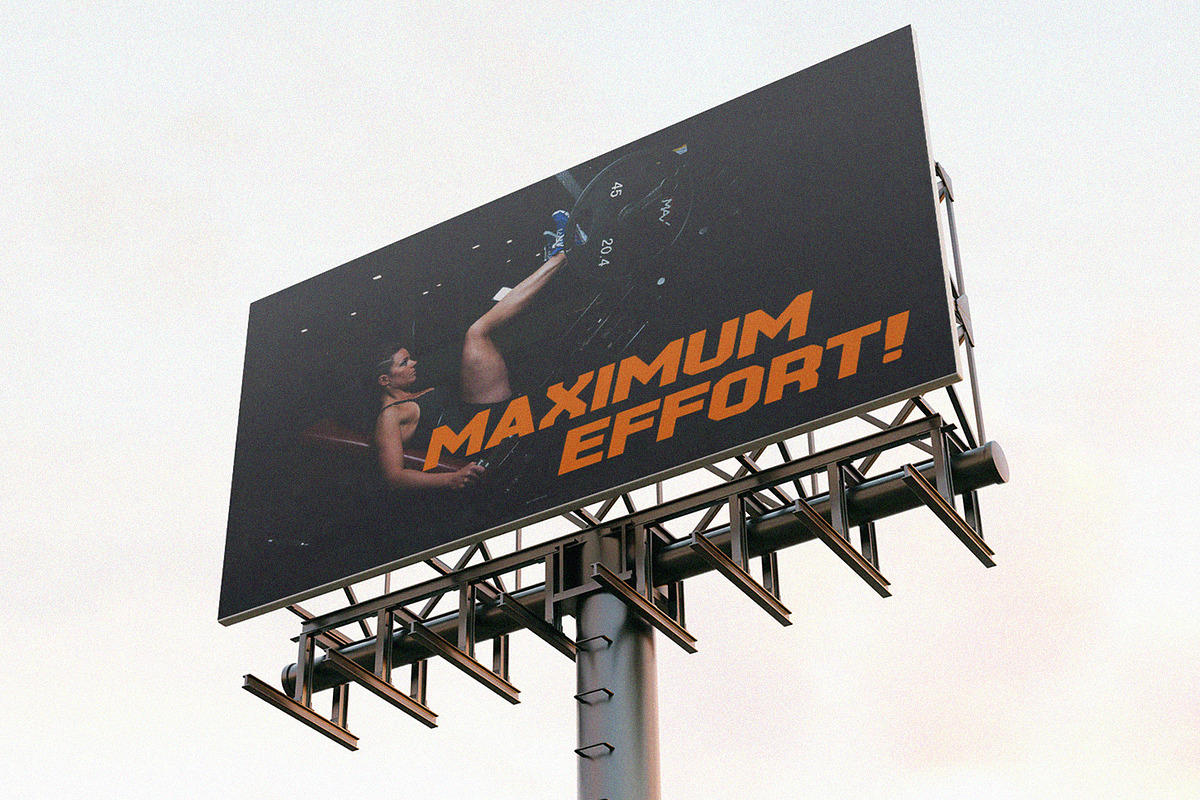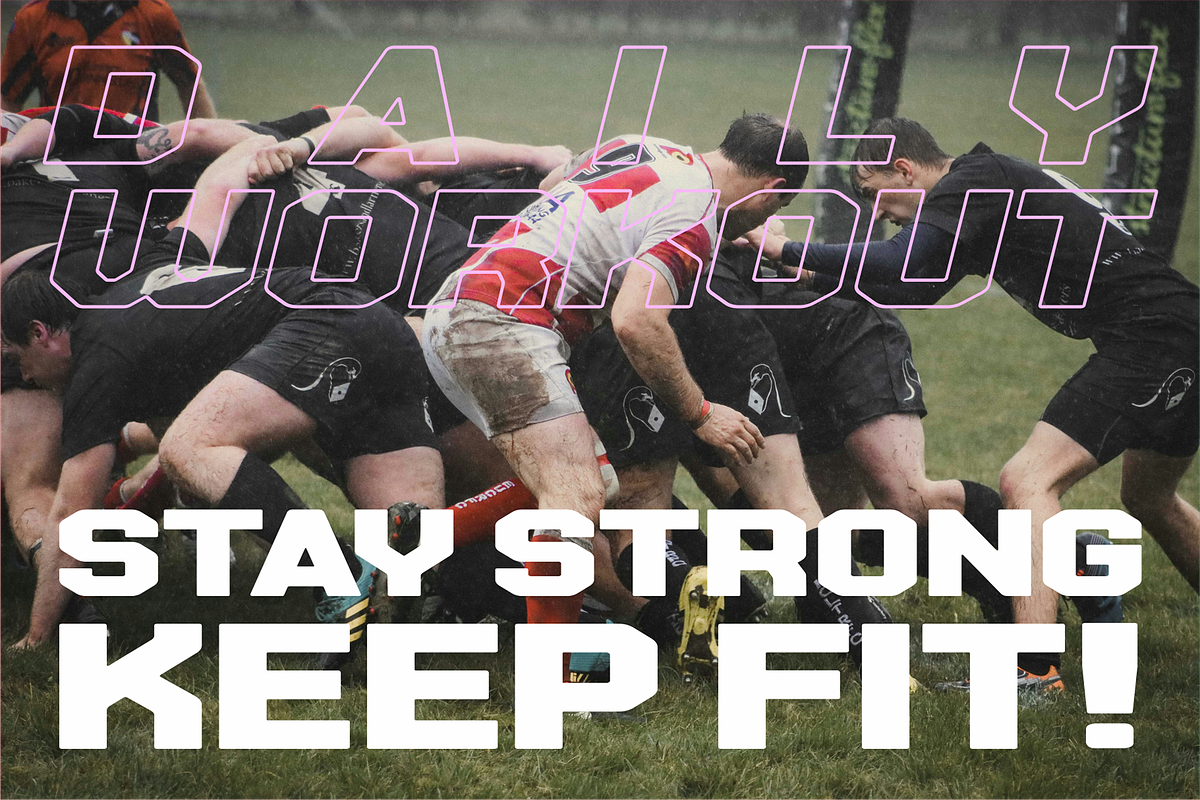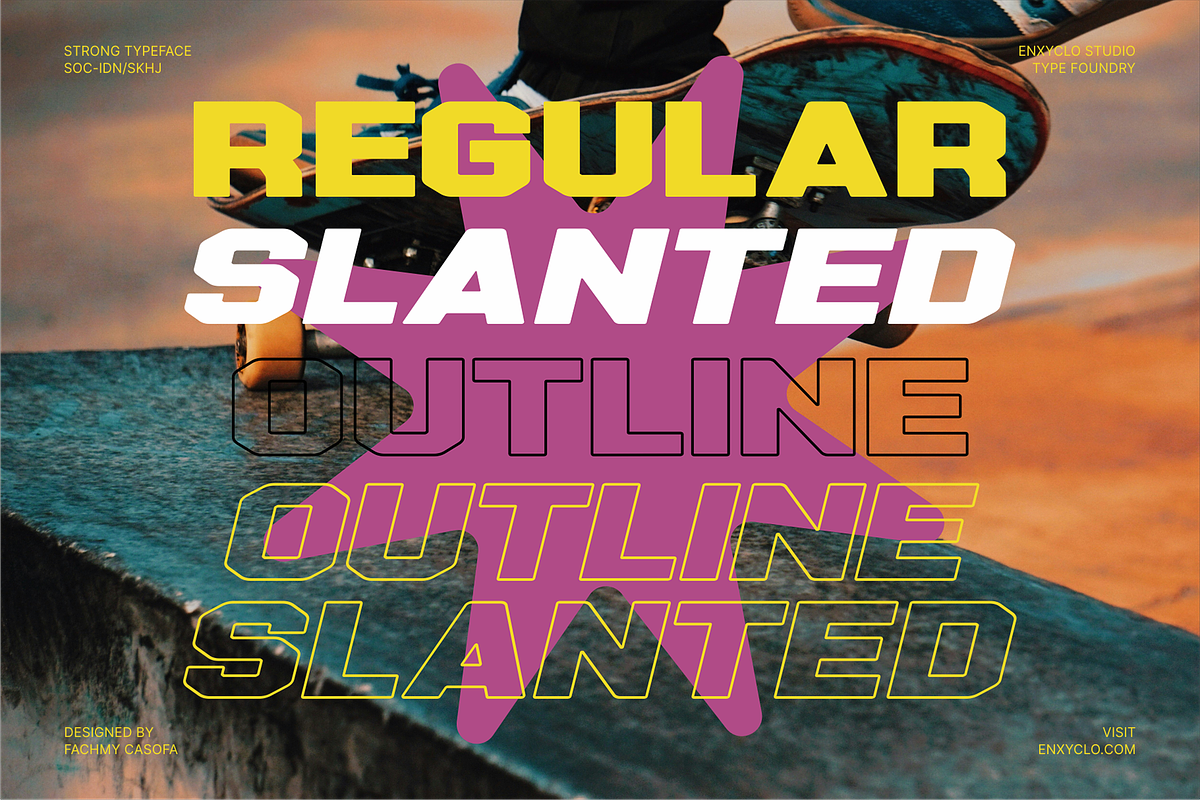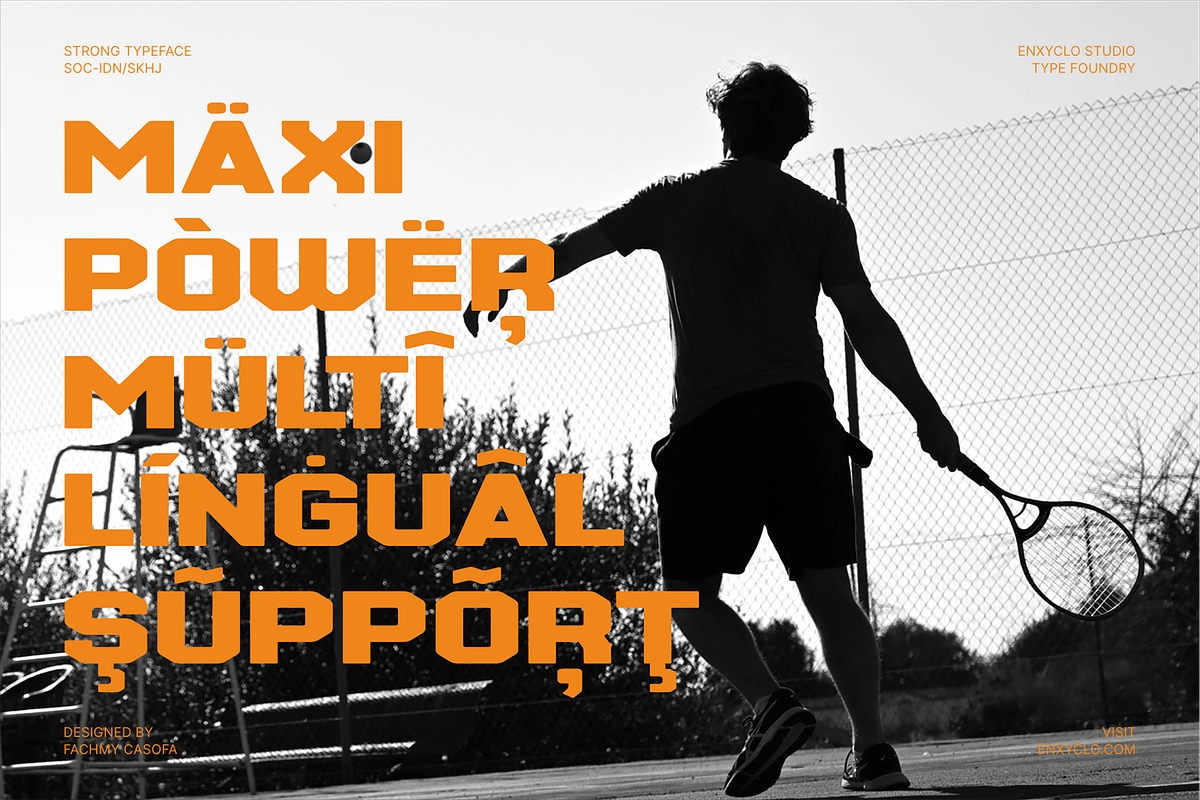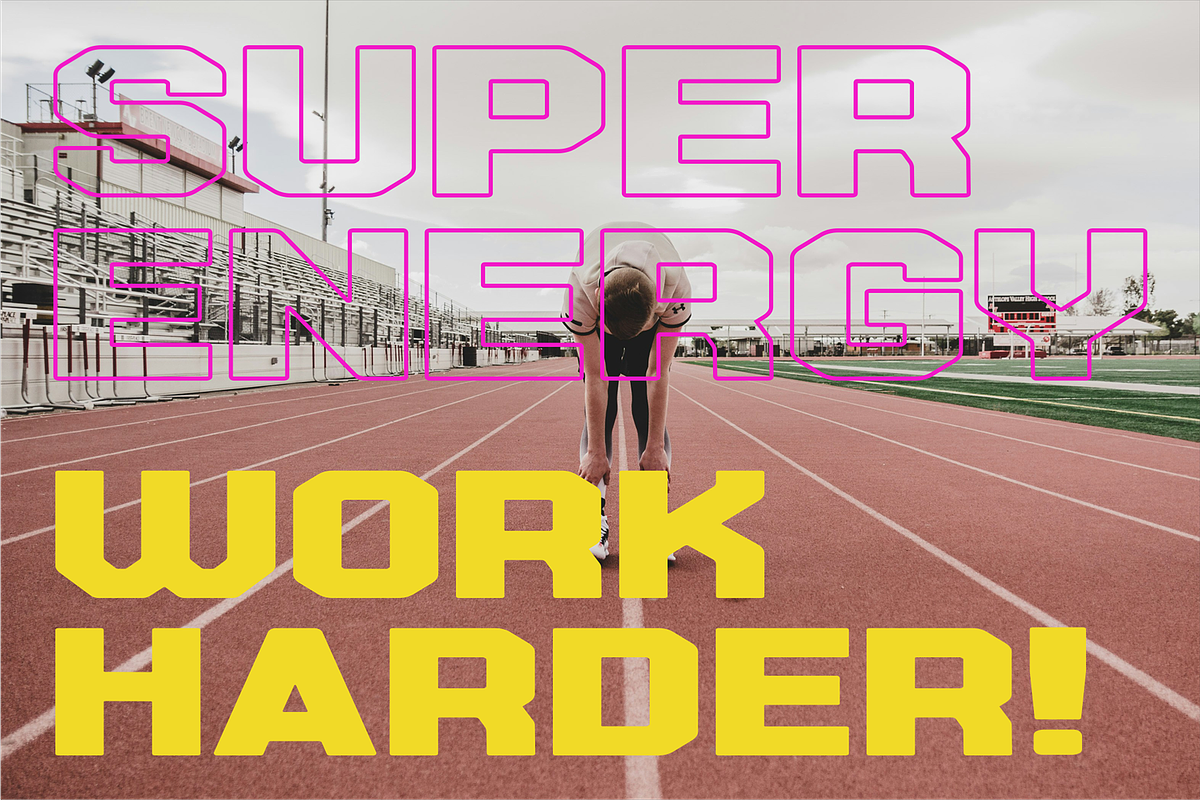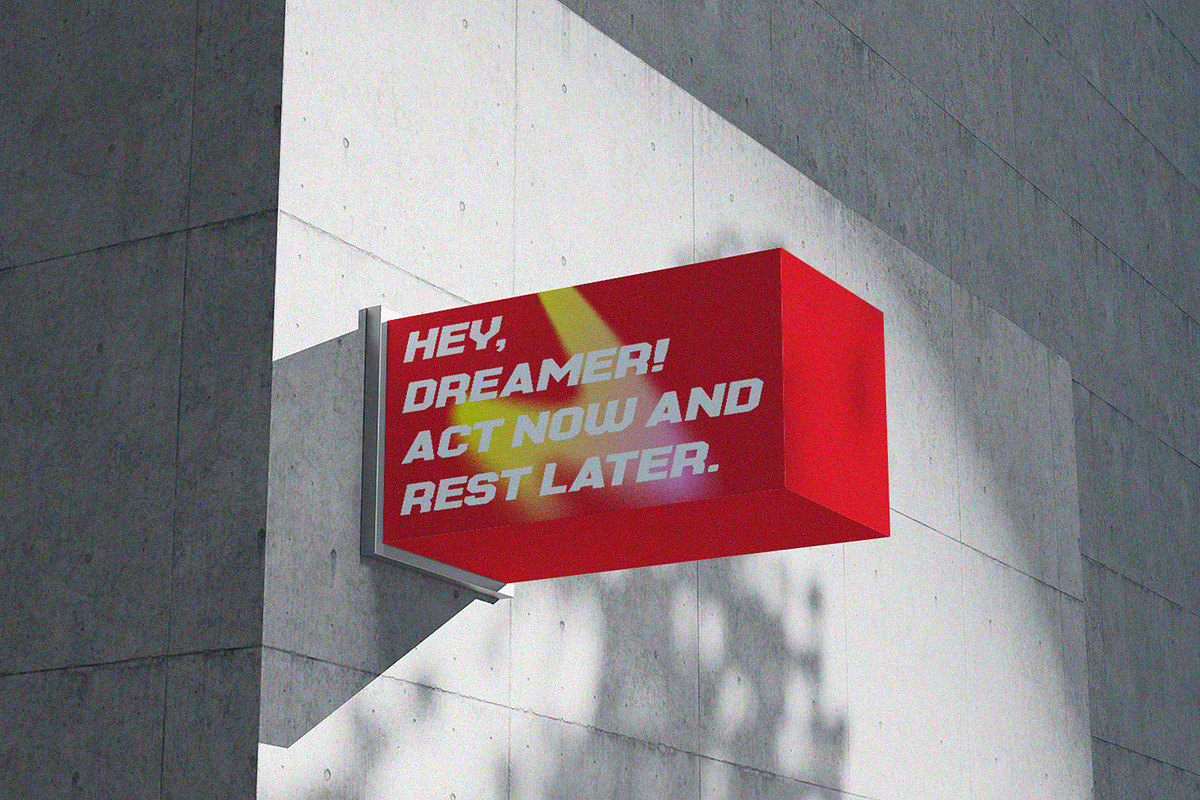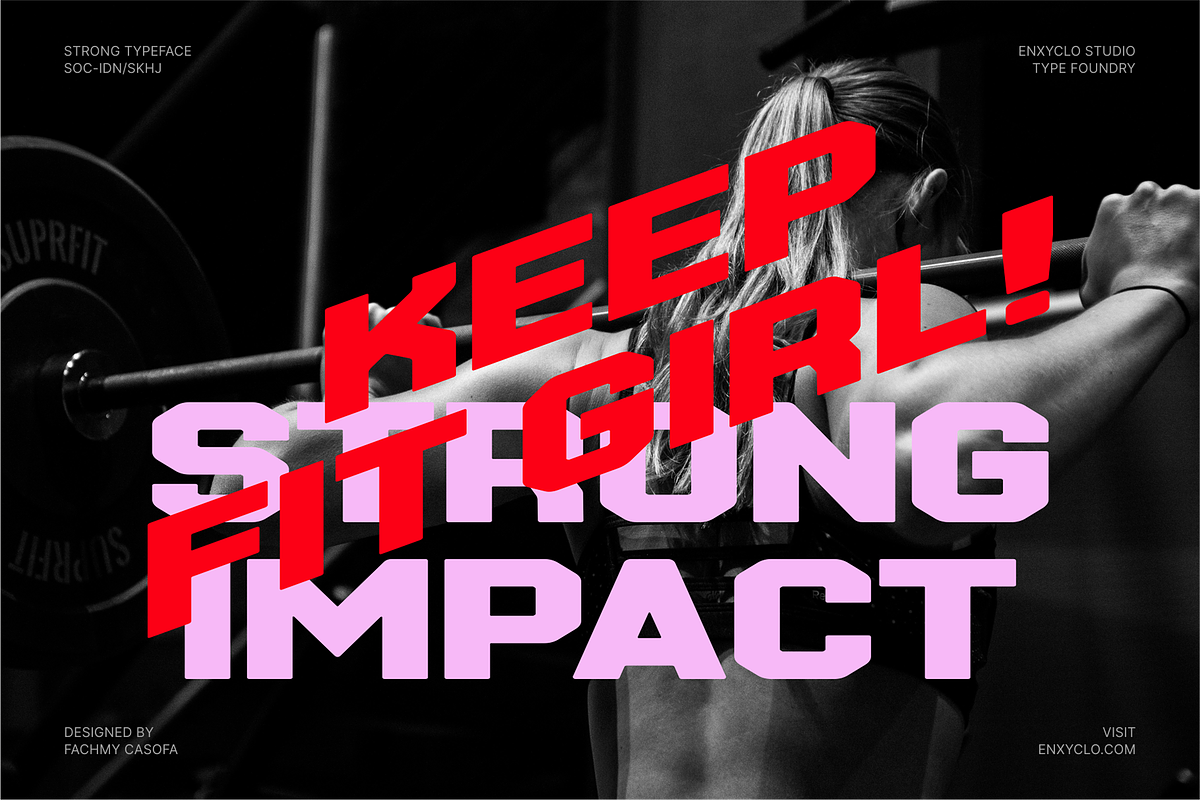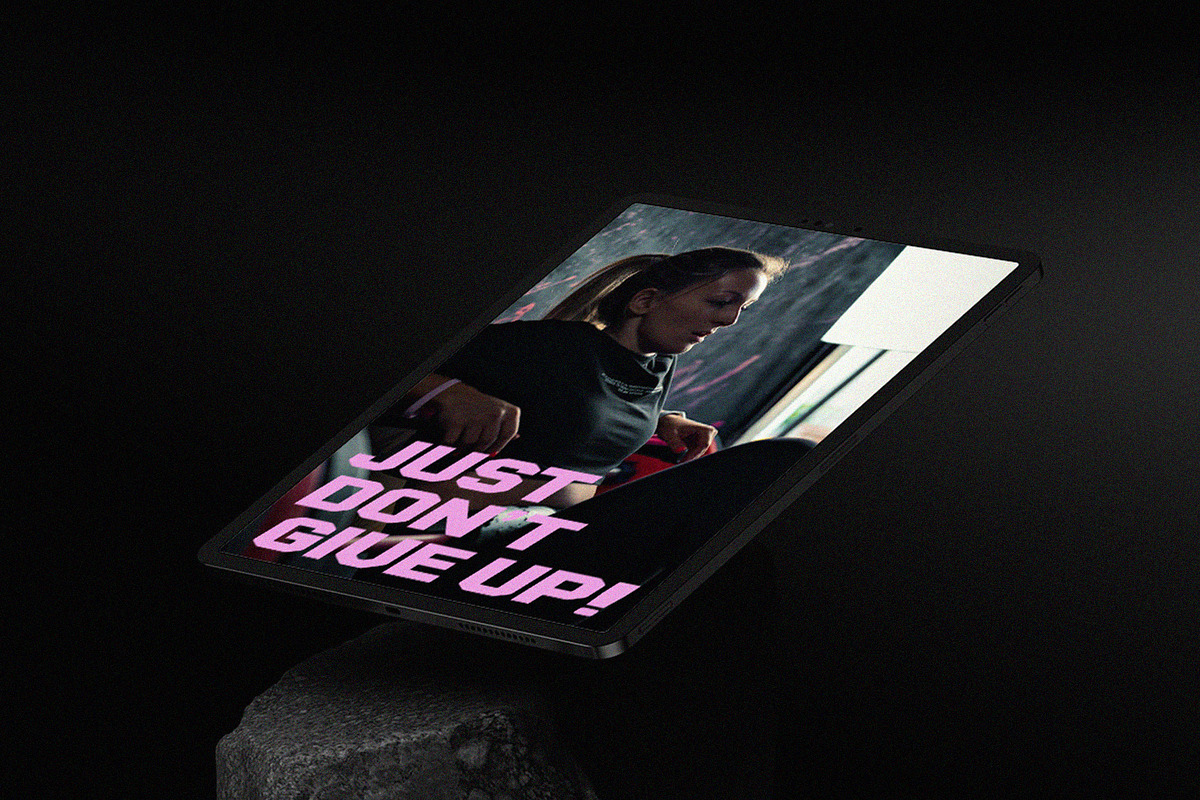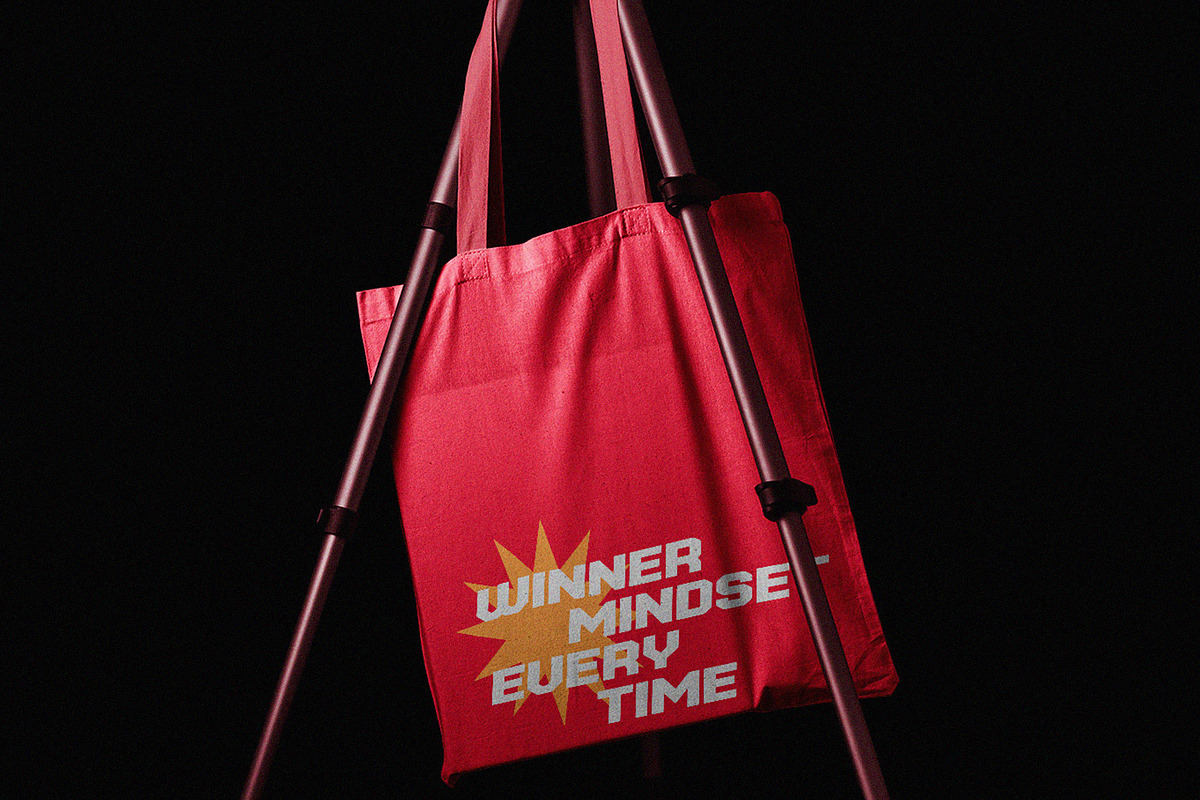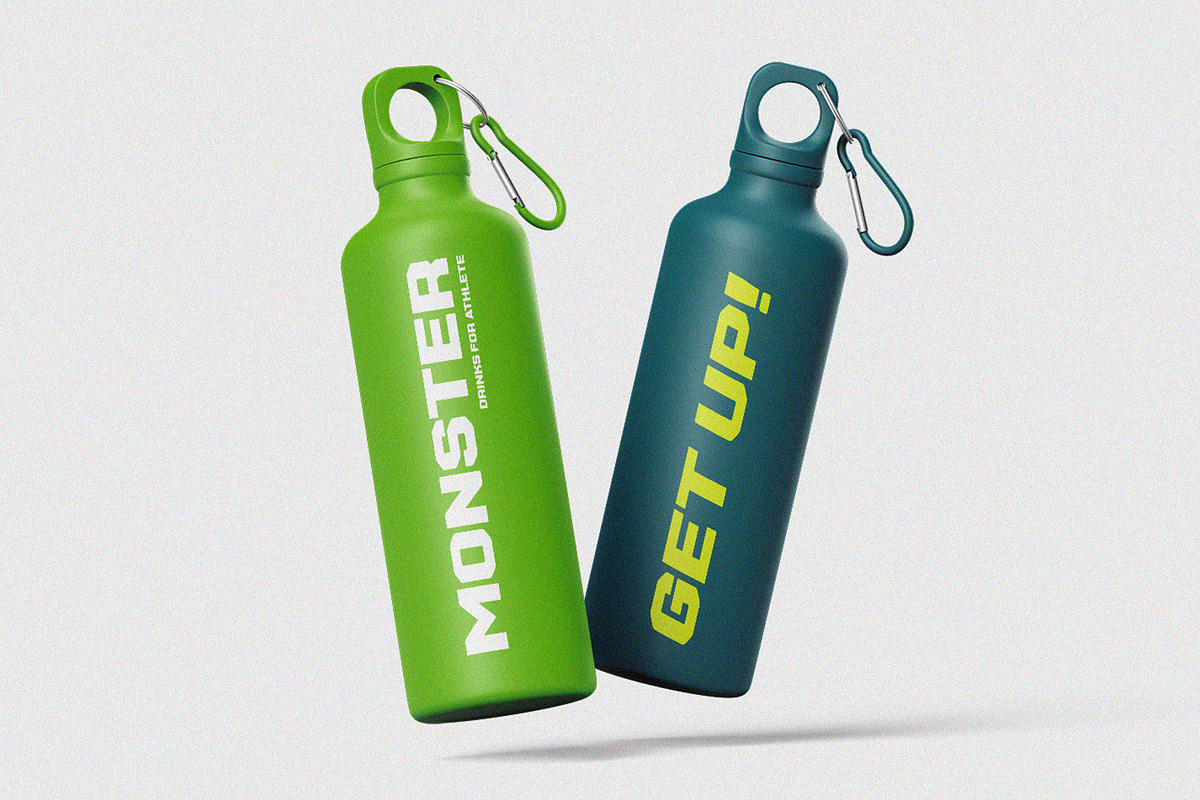
NCL Maxipower - Sport Gym Font
NCL MAXIPOWER is a gym sport font. Masterfully designed to become a true favorite, this font has the potential to bring each of your creative ideas to the highest level! It was purposely crafted to be used in large point sizes, although it doesn’t lose its magic in small point sizes. It is perfect for headline, billboard, magazines, website, titles, poster, branding, and logos. No matter the topic, this font will be an incredible asset to your fonts’ library, as it has the potential to elevate any creation. With this beautiful font, absolutely you can make your project stand out from the rest.
- 4 Style: Regular, Slanted, Outline, Outline Slanted
- Numeral, Punctuation & Symbols